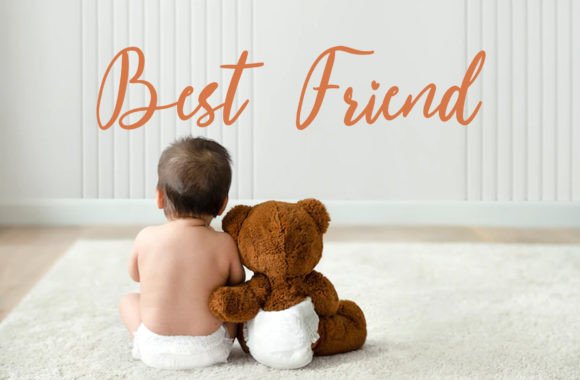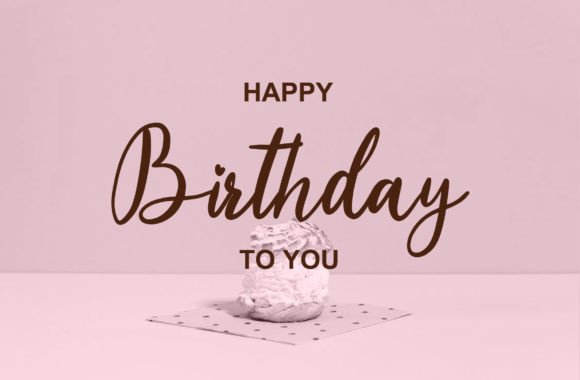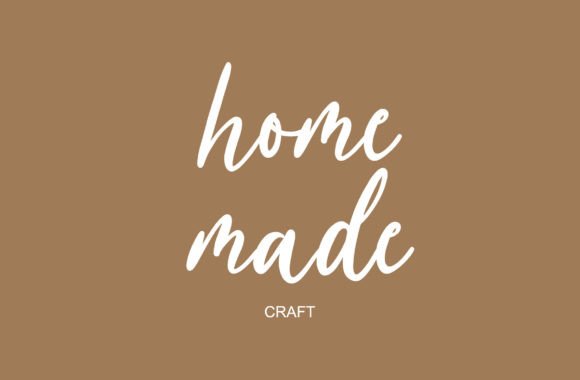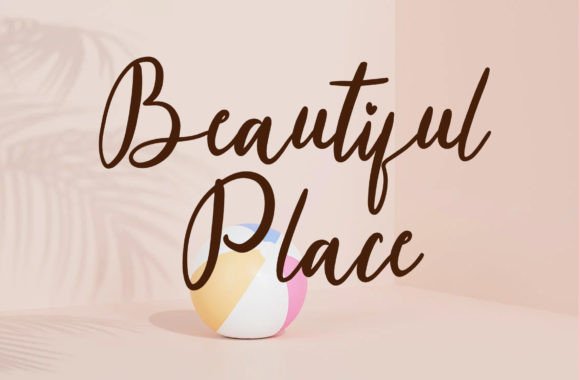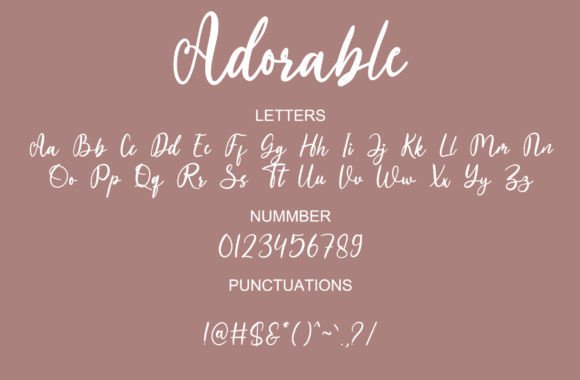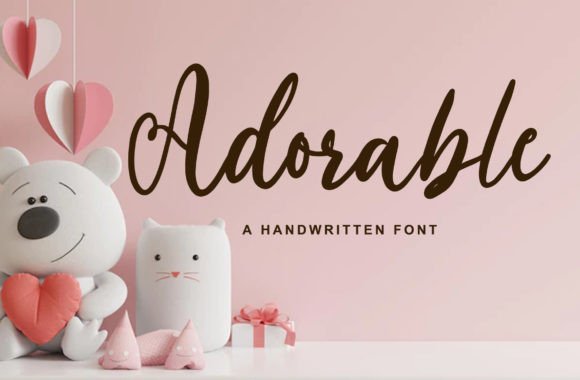
The Adorable Font: A Sweet and Cute Handwritten Delight
I’ll never forget the moment I stumbled upon the Adorable font. I was working on a wedding invitation project for a client, and I was struggling to find the perfect font that captured the sweet and playful vibe they wanted. As I scrolled through my font library, I came across Adorable, and it instantly stole my heart. Its incredibly versatile style and handwritten charm made it the perfect fit for the project. In this article, I’ll share my love for Adorable, its features, and how to make the most of it in various design platforms.
An Honest Review of Adorable Font
What I Love About Adorable ✨
• ✅ Sweet and cute handwritten style that’s perfect for wedding invitations, T-shirt designs, and more
• ✅ Incredibly versatile and adaptable to various design projects
• ✅ Easy to read and understand, even in small sizes
• ✅ Beautifully crafted with attention to detail and a touch of elegance
• ⚠️ Limited availability of stylistic alternates, which might limit its use in certain projects
• ⚠️ May not be suitable for very formal or professional designs, as it’s more playful and casual
The Backstory of Adorable Font
Adorable was designed by a talented font creator who wanted to craft a font that captured the sweetness and playfulness of handwritten letters. The designer drew inspiration from classic handwritten fonts and infused them with a modern twist, creating a unique and versatile font that’s perfect for various design projects.
Q: What type of designs is Adorable suitable for?
A: Adorable is perfect for wedding invitations, T-shirt designs, beautiful stationary art, eye-catching social media posts, and more!